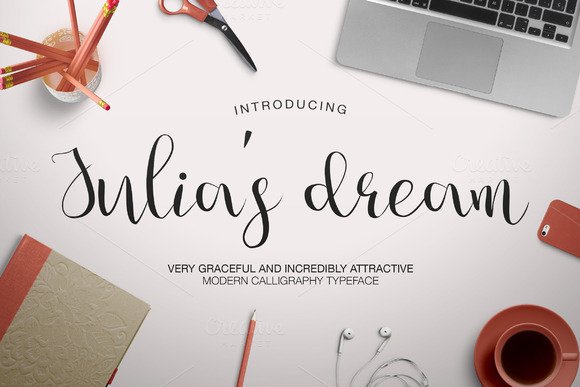
Julia’s Dream script
I present to you a stunning font. 100% hand painting. Very suitable for the design of logos, creation of invitations, greeting card and more.